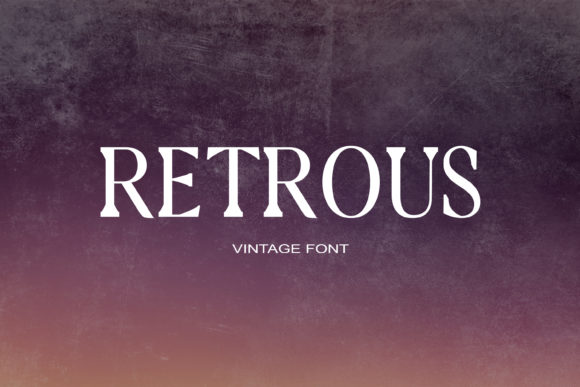
Step into the realm of eloquence with Retrous, a captivating serif font family that will breathe life into your creative endeavors. Crafted with meticulous attention to detail by the artistic hands of DmDesignsStoreArt, Retrous embodies the essence of sophistication and timeless allure.
Indulge in the graceful curves and refined strokes that define each character, whispering tales of elegance and refinement. With Retrous, your words will dance across the page, captivating your audience with their beauty and impact. From enchanting wedding invitations to compelling marketing materials, Retrous will elevate your designs to new heights of sophistication.
Whether you're a seasoned designer or just starting your creative journey, Retrous is the perfect companion for projects that demand a touch of timeless charm. Its versatility knows no bounds, effortlessly adapting to a myriad of design styles and themes.
Imagine the allure of vintage posters, where Retrous's delicate serifs evoke a sense of nostalgia and enduring style. Or envision the impact of elegant logos, their names emblazoned in Retrous, exuding confidence and sophistication. The possibilities are endless, and with Retrous as your creative ally, your designs will exude an aura of timeless elegance.
Retrous is not merely a font; it's an investment in the art of communication. Its captivating presence will captivate your audience, leaving a lasting impression that resonates long after the page is turned or the screen fades to black. So, let Retrous be your muse, your faithful companion in the pursuit of design excellence. With every stroke of your keyboard, witness the transformation of ordinary words into extraordinary expressions of art and emotion.